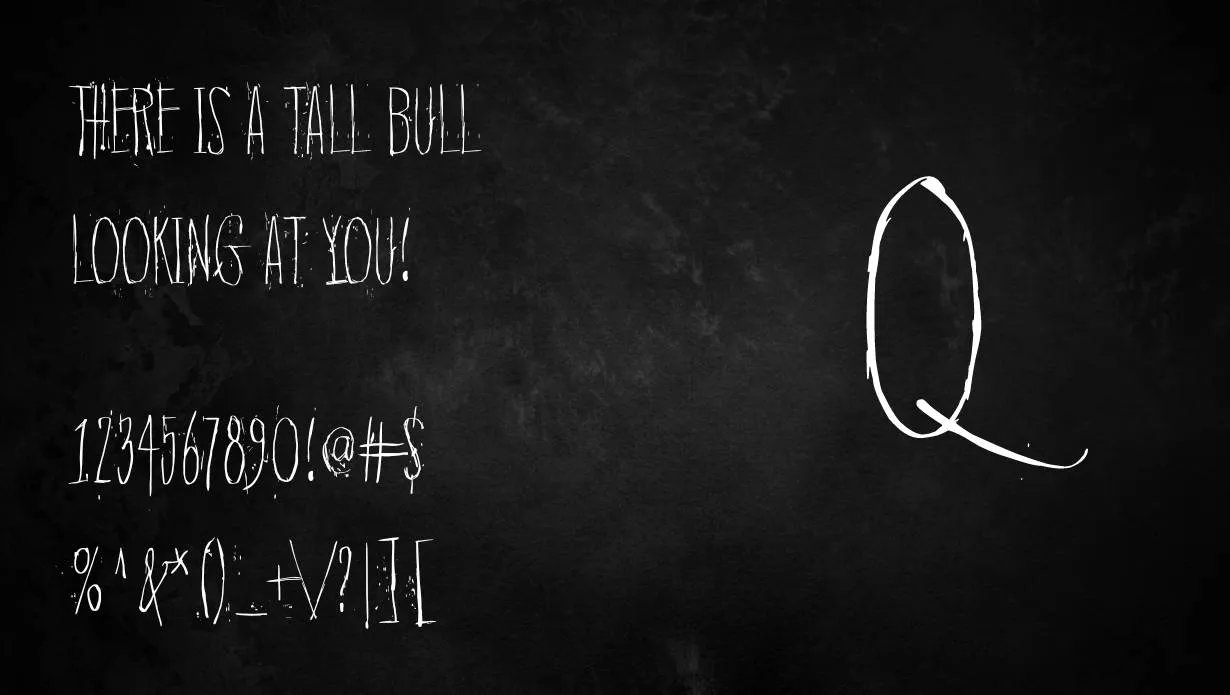
Quiet Horror Story Font Free Download
Quiet Horror Story Font is a spooky and atmospheric typeface designed for horror-themed projects. Its eerie characters add a chilling touch to the text, making it suitable for Halloween materials, horror novels, or any design that aims to evoke a sense of suspense